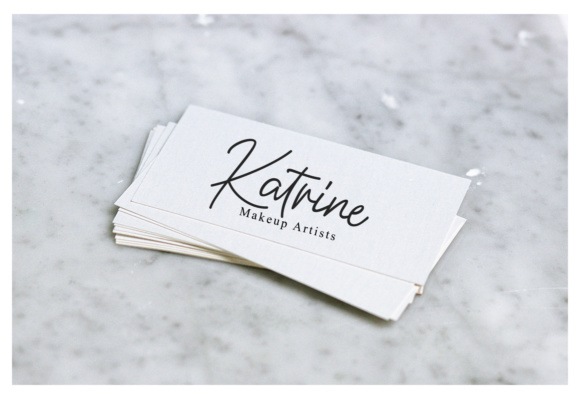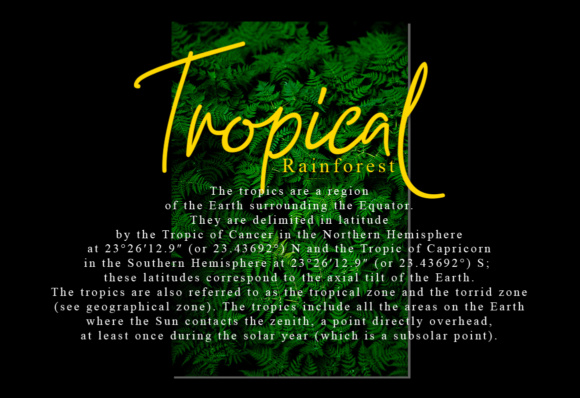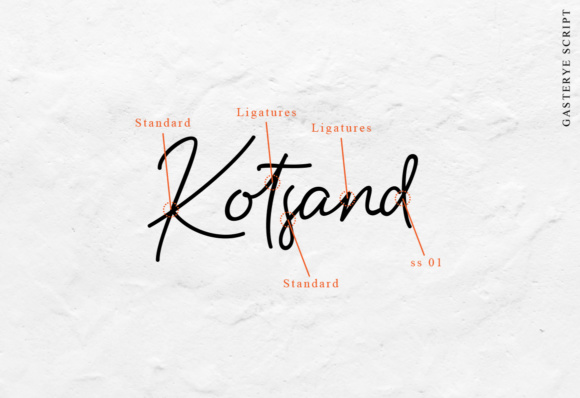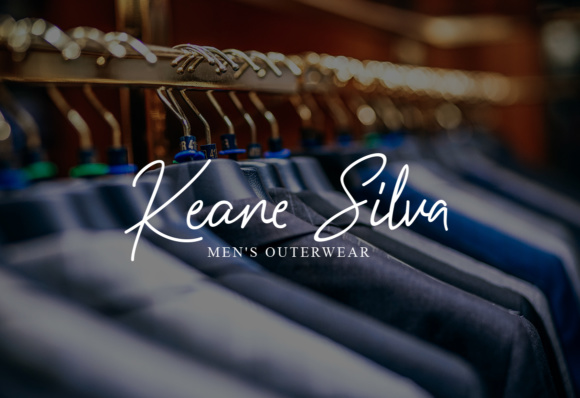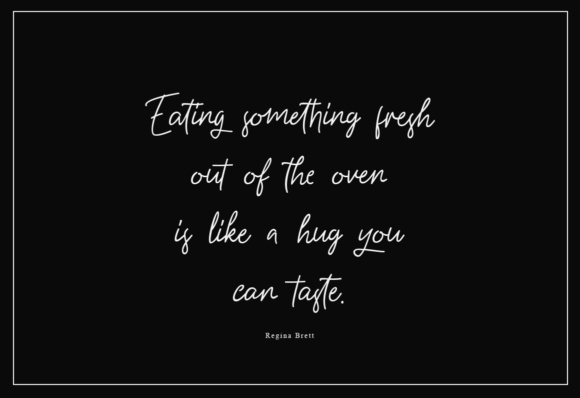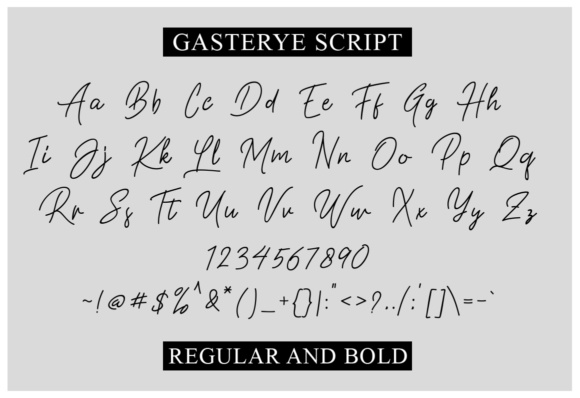
The Ultimate Guide to Gasterye Font: Adding a Relaxed yet Sophisticated Touch to Your Designs
An Honest Review of Gasterye Font
- ✨ Unique Signature Vibe: Gasterye Font has a distinct personality that sets it apart from other fonts. Its relaxed yet sophisticated appeal makes it perfect for designs that need a bit of flair.
- ✅ Complementary Marker Font Style: The addition of a marker font style is a genius move. It allows for even more versatility and creative freedom in your designs.
- 💯 Hand-Lettered Charm: The font’s hand-lettered feel adds a touch of warmth and humanity to your designs, making them more approachable and engaging.
While Gasterye Font is an amazing addition to any design toolkit, there are a few things to keep in mind:
- ⚠️ Legibility at Small Sizes: Like many script fonts, Gasterye can get a bit tricky to read at very small sizes. Make sure to test it out at different sizes to ensure it works for your specific project.
- 🤔 Pairing with Other Fonts: As with any font, pairing Gasterye with other fonts can be a bit tricky. Experiment with different combinations to find the perfect match for your design.
The Backstory Behind Gasterye Font
While the origins of Gasterye Font are shrouded in mystery, it’s clear that its designer was on a mission to create a font that’s both fun and sophisticated. Imagine a designer who wanted to bottle up the laid-back vibe of a California beach town and turn it into a font that’s perfect for designs that need a bit of flair.
| Font Name | Gasterye Font |
| Author | Ijem RockArt |
| What makes Gasterye Font unique? | Gasterye Font’s unique signature vibe and complementary marker font style set it apart from other fonts. |
| Is Gasterye Font suitable for body text? | While Gasterye Font is stunning, it’s best used for headings and titles. Its legibility at small sizes can be a bit tricky. |